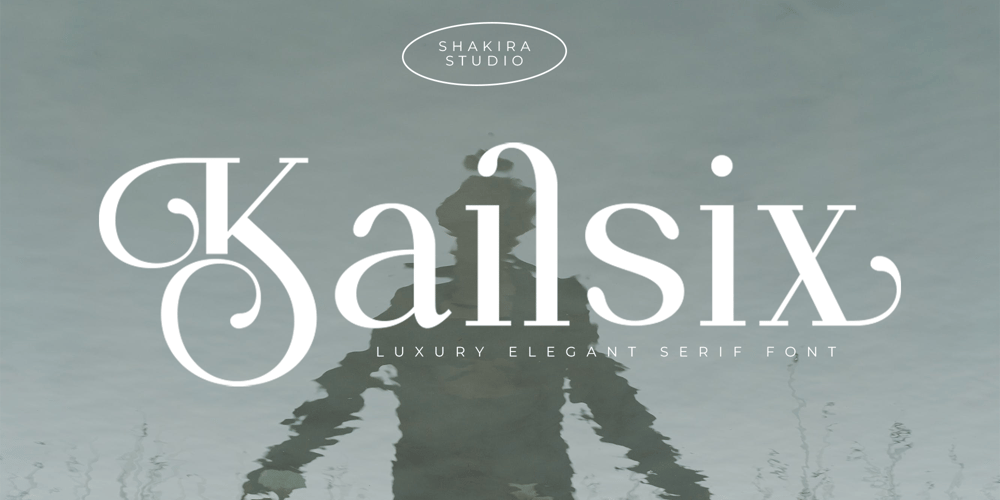
Kailsix
Kailsix font
Kailsix Font Family was designed by Idhham Cholid Rikzano Yahya and published by Shakira Studio. Kailsix contains 2 styles and family package options. Introducing “Kailsix,” a font that epitomizes Luxury Elegant Serif design, setting the stage for opulence and style. Immerse your projects in a world of sophistication with this meticulously crafted typeface. “Kailsix” stands out in the realm of luxury fonts, boasting a diverse selection of alternates and ligatures that add a touch of extravagance and stylish finesse to your designs.Each detail of “Kailsix” exudes a sense of refinement, making it the perfect choice for those seeking a font that seamlessly blends luxury with modern aesthetics. Elevate your creative endeavors with the lavish and stylish features of “Kailsix,” setting a new standard for Luxury Elegant Serif Fonts in today’s design landscape.Here’s what you get: Regular & Italic All Multilingual symbol Opentype features ( ligature, alternate ) Accessible in the Adobe Illustrator, Adobe Photoshop, Adobe InDesign, even work on Microsoft Word. PUA Encoded Characters – Fully accessible without additional design software. Multilingual character supports : (Afrikaans, Albanian, Catalan, Croatian, Czech, Danish, Dutch, English, Estonian, Finnish, French, German, Hungarian, Icelandic, Italian, Lithuanian, Maltese, Norwegian, Polish, Portuguese, Slovenian, Spanish, Swedish, Turkish, Zulu)Follow my shop for upcoming updates, and for more of my work,Thank you!Show Less